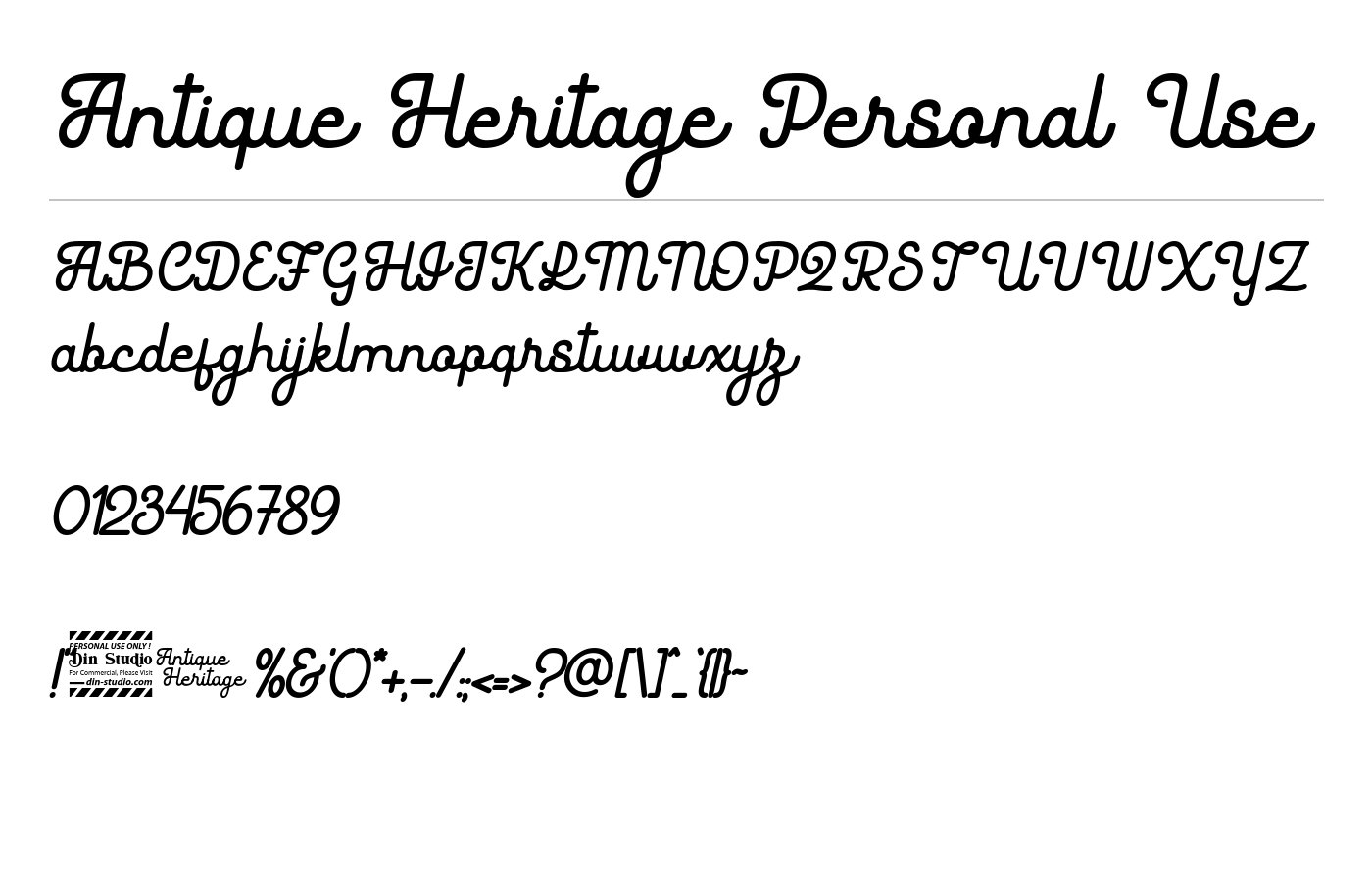
Antique Heritage Personal Use is a charming script font with a vintage flair, featuring smooth, flowing strokes and moderate contrast for an elegant yet approachable feel. Its cursive letterforms and slightly condensed width make it ideal for designs seeking a personal, nostalgic touch. This font works beautifully in branding, invitations, and packaging where a warm, handcrafted impression is desired.
Antique Heritage Personal Use Font
About Antique Heritage Personal Use Font
| Font family | Antique Heritage Personal Use Font |